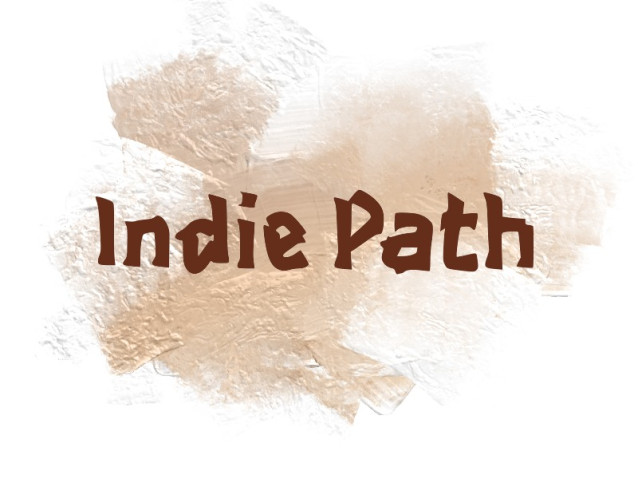
Indie Path Font
Indie Path Font is a simple and modern display font suitable for quotes, logos, headings, titles, and many more. Use it on any of your creative projects, and your designs will become outstanding!